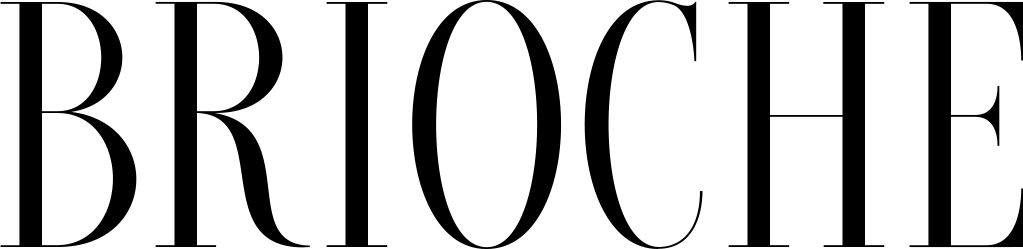
Brioche Font
Are you looking for a font that is posh and in vogue?! Then you need to go along with this wonderful amazing American classic font which is modern, classy, and creative. The slim stylish characters are eye-catching, sensible, and look professional.
Utilize the letterforms available which are capital alphabets and symbols to create your typography easily. Unfortunately, no lowercase letters or numbers are included. Brioche is a promising choice for magazines, trifold brochures, exhibitions, banner branding, or where you wish.